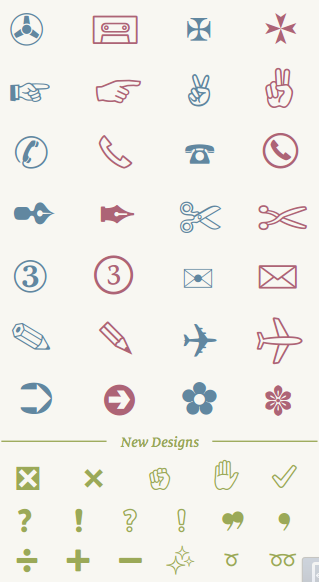
Erler Dingbats: A Free Modernized Dingbat Font
It’s probably not much of an exaggeration to say that nearly anyone who’s used a computer in the last 20 years has used some variation of Hermann Zapf’s Dingbats font.
The original Zapf Dingbats font was designed in the late 1970s, and gained fame in the ’80s during the desktop publishing revolution as one of the fonts included with Apple’s LaserWriter. Later, it was distributed with Adobe’s Acrobat Reader and the rest was history.
In the early ’90s, FontShop’s Jürgen Siebert and Johannes Erler conceived of and created a comprehensive update to Zapf Dingbats with more than 800 images, and thus was born FF Dingbats.
Of course, the past 20 years have seen a continued rapid evolution in design and technology, and FF Dingbats itself was in need of an update. Thus was born FF Dingbats 2.0, in which the dingbat set was further overhauled to feature more modern imagery, and a more consistent overall design. It also includes an Open Type layering feature that allows you to quickly combine multiple glyphs and apply colors to each component.
And now FontShop is offering a spin-off of the FF Dingbats 2.0 family for the low, low price of free. Erler Dingbats features over 200 glyphs including updated versions of standard dingbats, plus 17 new designs.